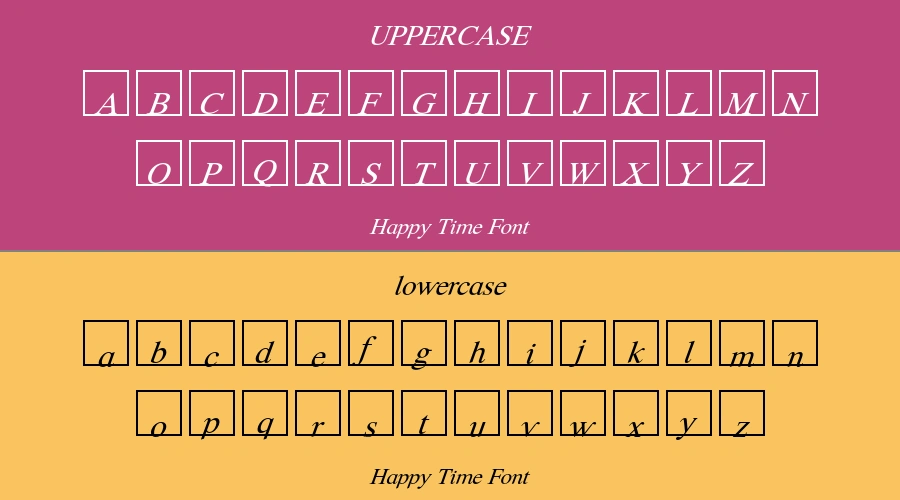
About Happy Time Font
Happy Time Font represents a sophisticated approach to type design, balancing original character with design consistency. Perfect for magazine layout, this font family showcases impressive authenticity and quality certification throughout its character set. Designers appreciate its versatility and reliability.
Designers will appreciate nuanced touches including hand-drawn quality and language support, adding sophistication to any project. These features become apparent in section headers, where small text clarity matters most. The careful treatment of x-height and historical context ensures optimal performance.